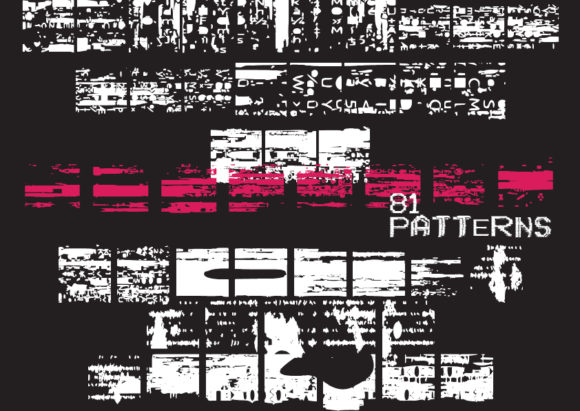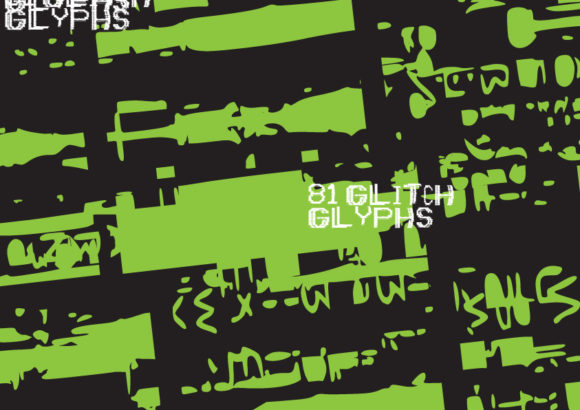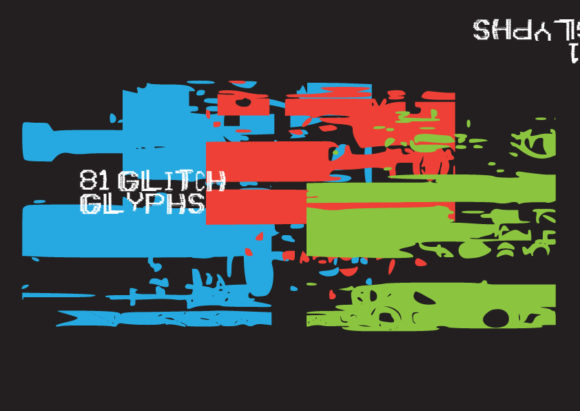
Reviving the Magic of Broken Code: Introducing Glitch Patterns Font
You’ve stared at a blank canvas, trying to bring your sci-fi vision to life, but something’s missing. The colors are dull, the shapes are too perfect, and your futuristic cityscape just doesn’t feel broken enough. That’s where the Glitch Patterns Font comes in – a collection of 81 glyphs that will inject your design with a healthy dose of glitchy goodness.
This unique font is designed to give your creations a retro-futuristic feel, perfect for glitch art, cyberpunk aesthetics, or any project that needs a dash of digital decay. With its array of distorted characters, Glitch Patterns Font is a valuable addition to any designer’s toolkit. Whether you’re a seasoned pro or a beginner looking to experiment with new styles, this font will help you add a touch of imperfection to your work.
Glitch Patterns Font Key Features
- Unique Characteristic: Distressed, glitch-inspired aesthetic, mimicking the effects of digital malfunctions and data corruption.
- Character Set: Includes a wide range of characters, including uppercase and lowercase letters, numbers, punctuation, and special symbols.
Designer Review: Glitch Patterns Font
Glitch Patterns Font is a unique and eye-catching typeface that can add a futuristic touch to your designs. ✨ The font’s glitchy aesthetic is perfect for projects that require a retro-futuristic or cyberpunk vibe. It’s also great for adding some visual interest to your designs, making it a great choice for headings and titles.
However, there are some limitations to consider. ⚠️ The font may not be suitable for long blocks of text, as the glitchy patterns can make it difficult to read. Additionally, the font may not be compatible with all operating systems or devices, which could lead to rendering issues.
- Unique glitchy aesthetic
- Perfect for retro-futuristic or cyberpunk designs
- Great for adding visual interest to headings and titles
- Not suitable for long blocks of text
- May have compatibility issues with certain operating systems or devices
Overall, Glitch Patterns Font is a great choice for designers who want to add a unique touch to their projects. While it has some limitations, the font’s unique aesthetic makes it a great option for designers who are looking to create a futuristic or retro-futuristic look.
Practical Application Guide for Glitch Patterns Font
The Glitch Patterns Font is ideal for creating retro-futuristic designs, such as:
- Retro video game-inspired graphics
- Neon-lit cityscapes
- Science fiction-themed artwork